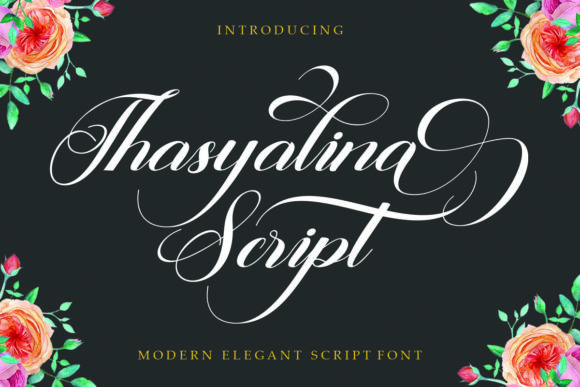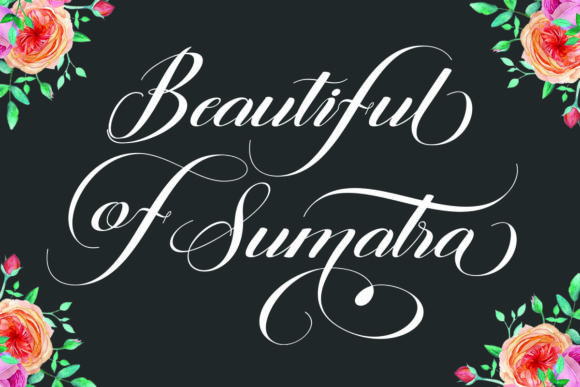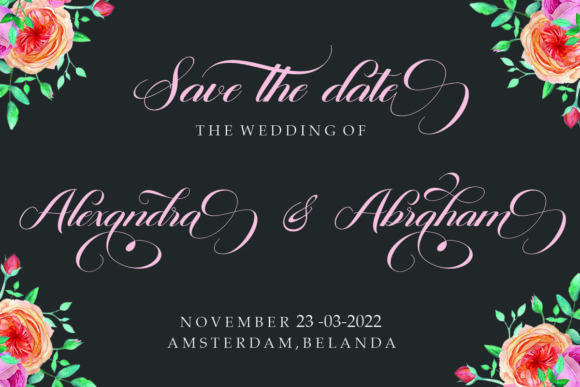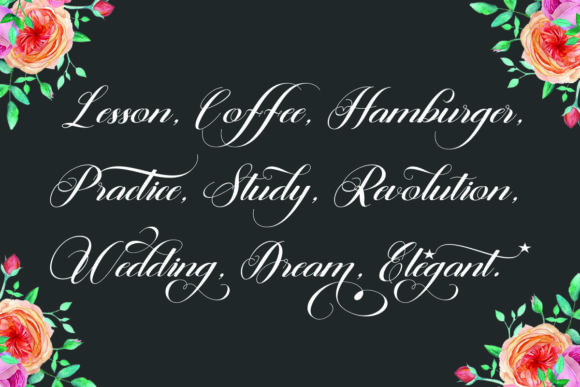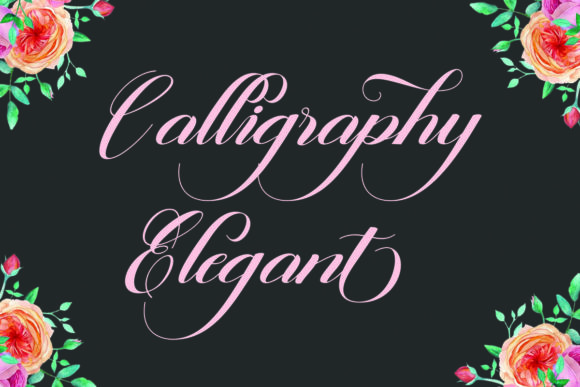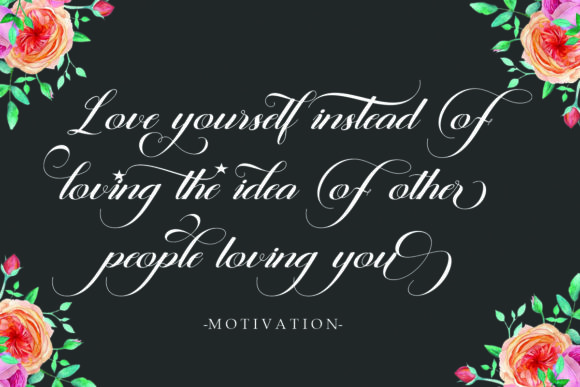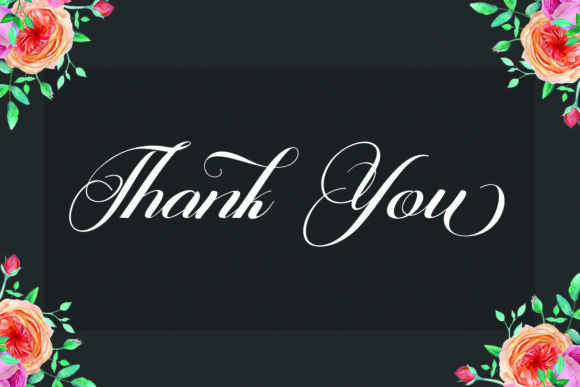
Thasyalina Script Font
About Thasyalina Script Font
Thasyalina Script is a thin lettered and graceful script font. Fall for its ravishing style and use it to create gorgeous designs. It is PUA encoded which means you can access all of the glyphs and swashes with ease!